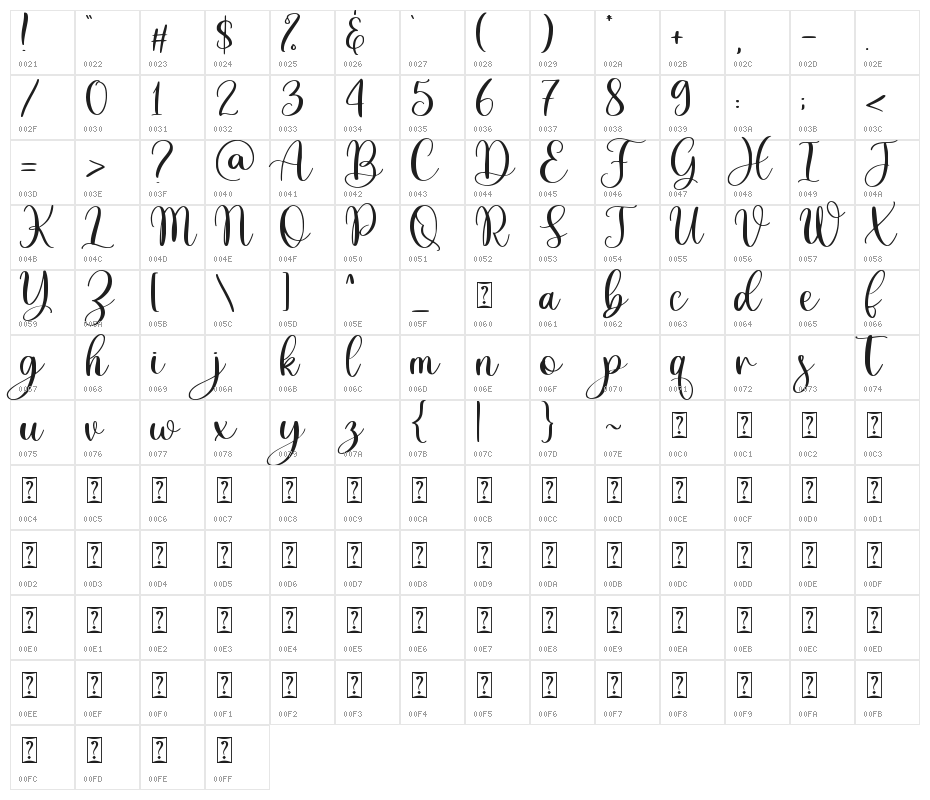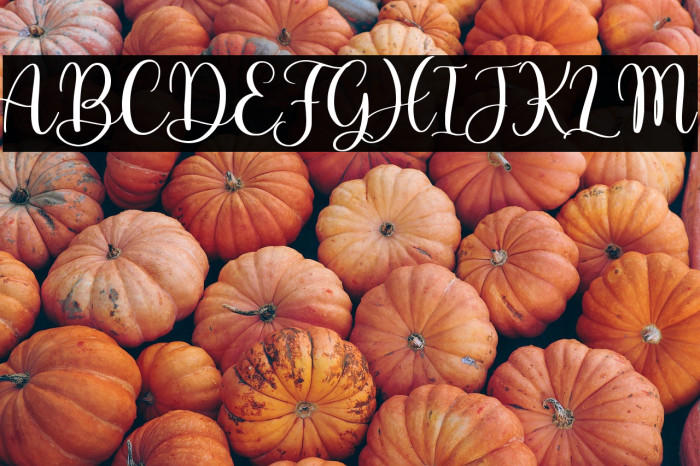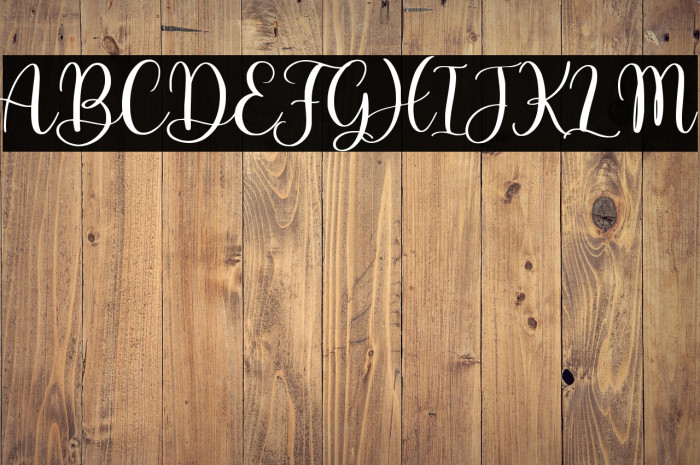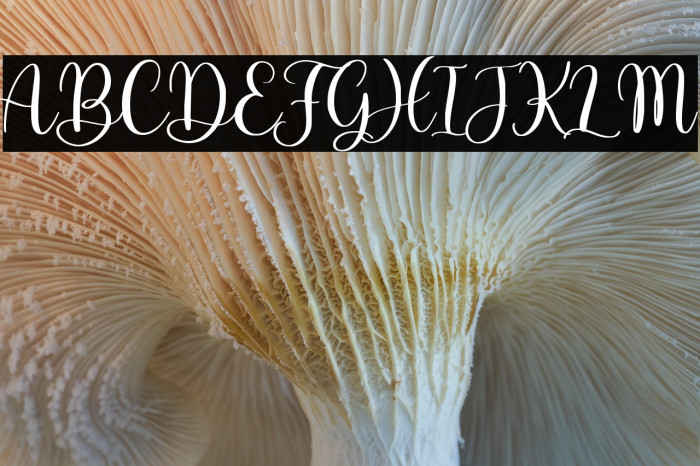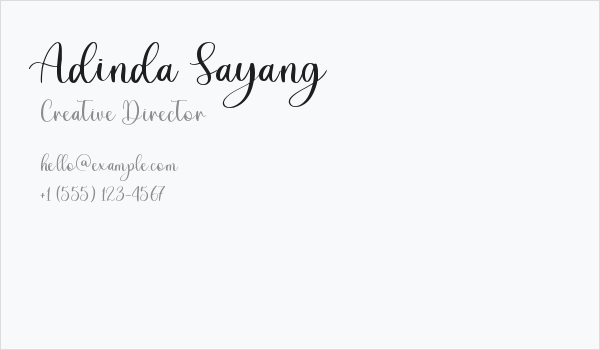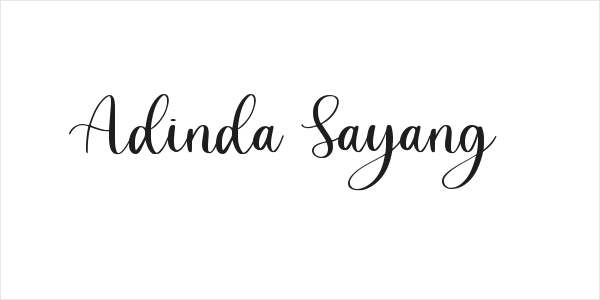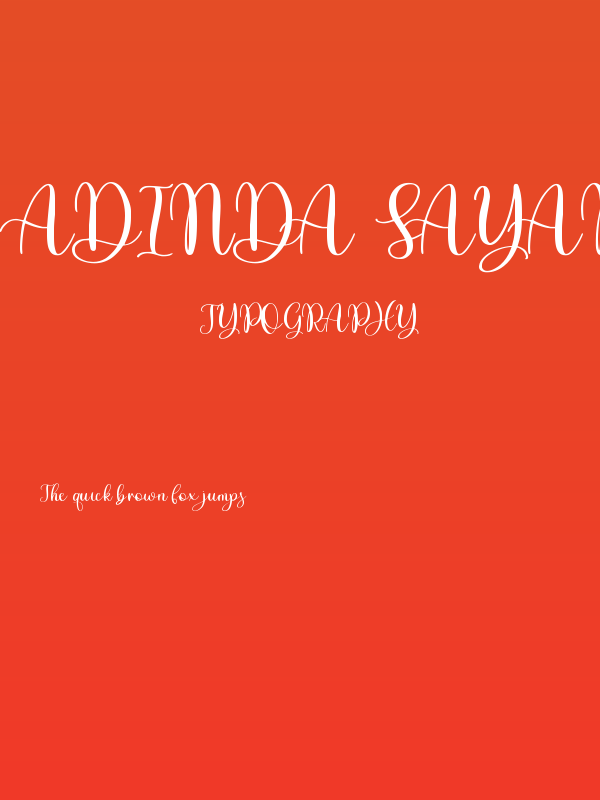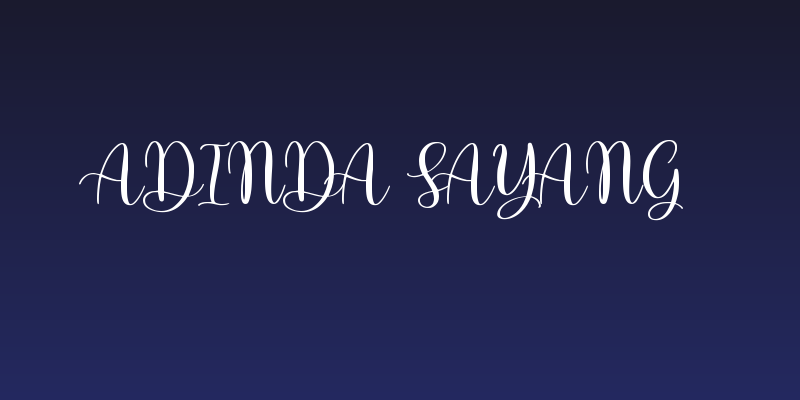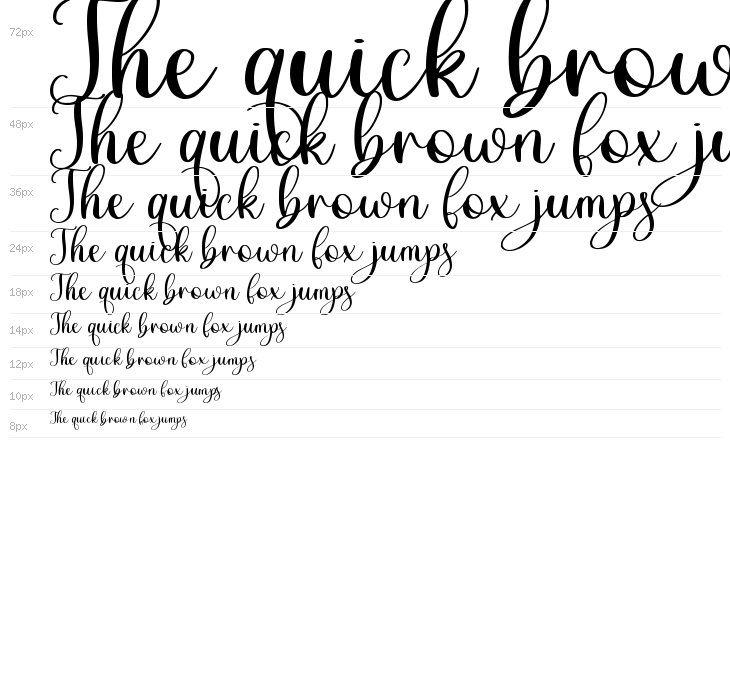
Adinda Sayang Font
Adinda Sayang Description
This font features an elegant and flowing script style, characterized by its smooth, cursive strokes and graceful loops. The uppercase letters exhibit a sophisticated flair with extended ascenders and descenders, while the lowercase letters maintain a consistent fluidity. The numerals are designed with a similar cursive touch, ensuring a cohesive look throughout. Special characters are seamlessly integrated, adding to the font's versatility. The overall appearance is both stylish and readable, making it suitable for a variety of design applications.
| Proposed Projects | Ideal for wedding invitations, greeting cards, branding, and elegant packaging. |